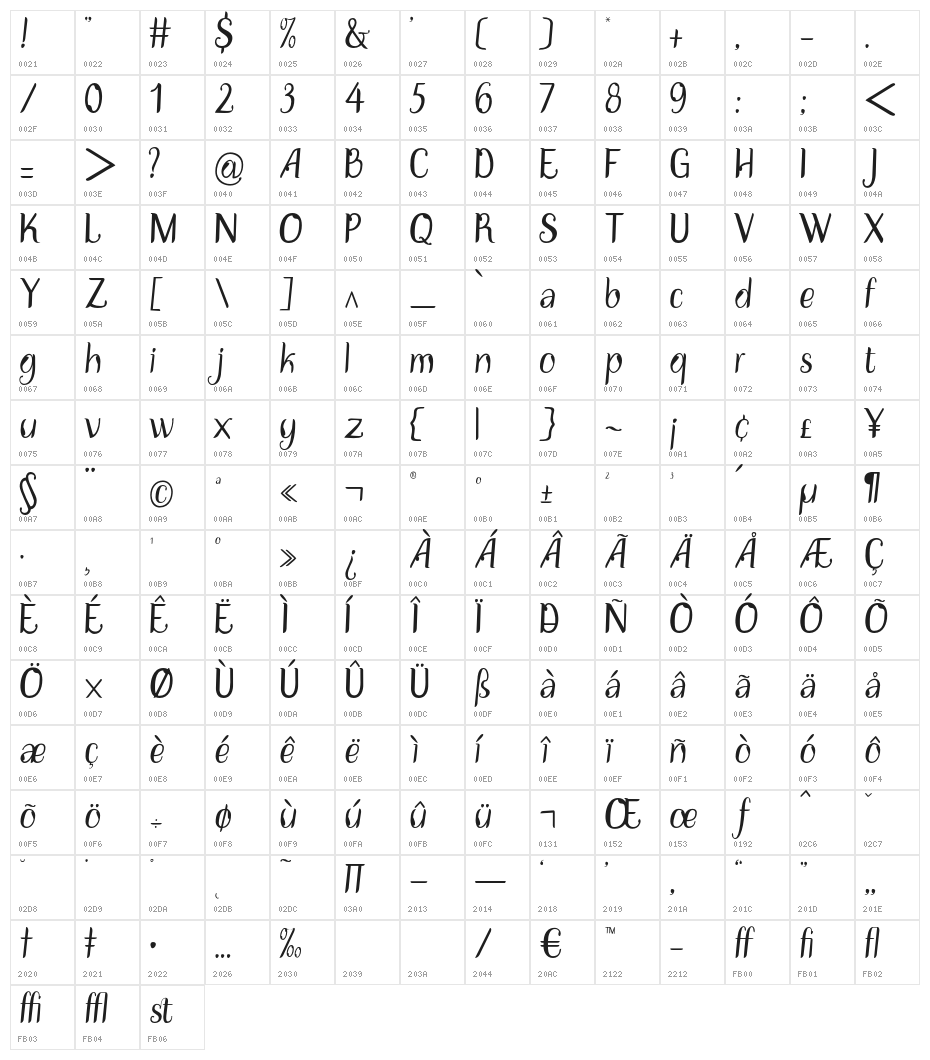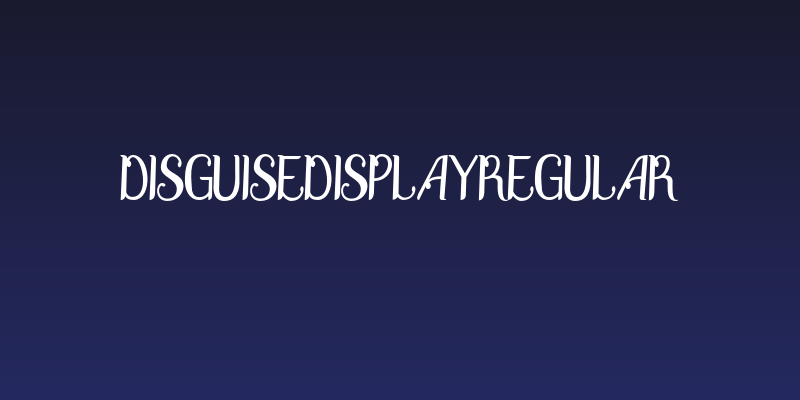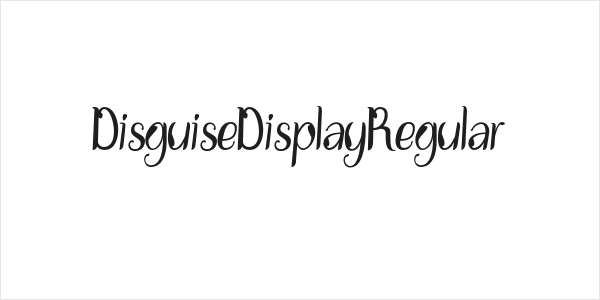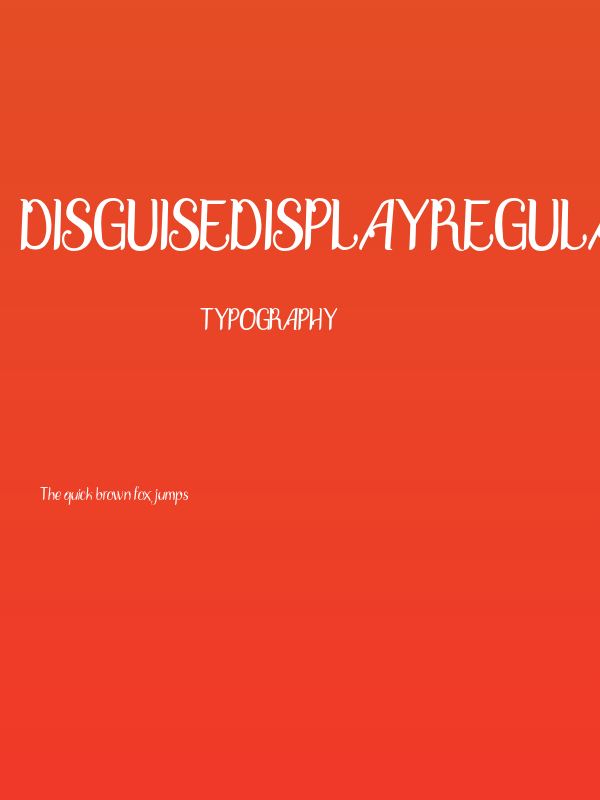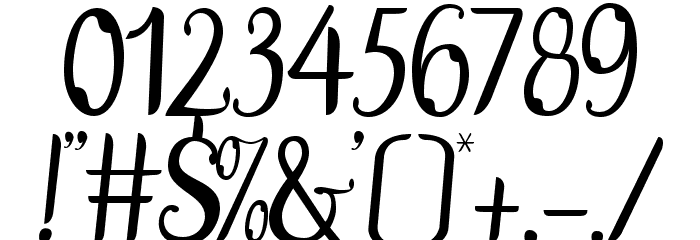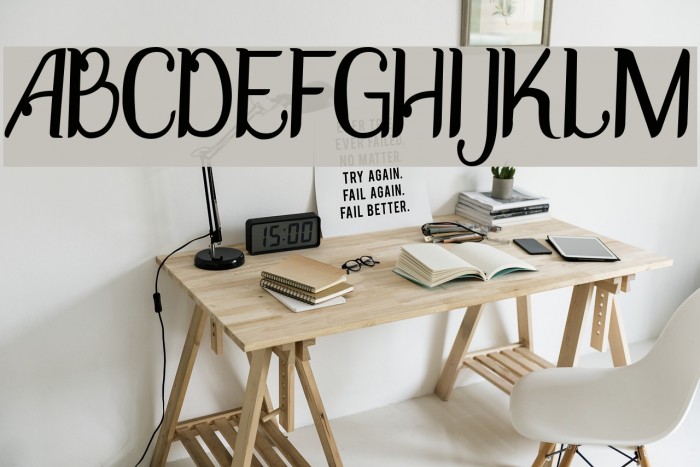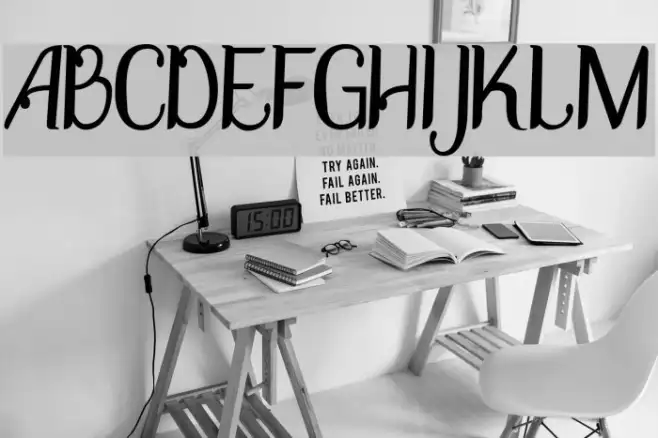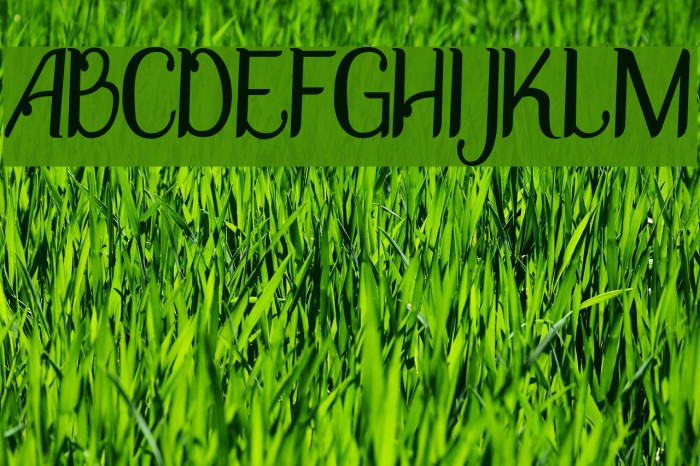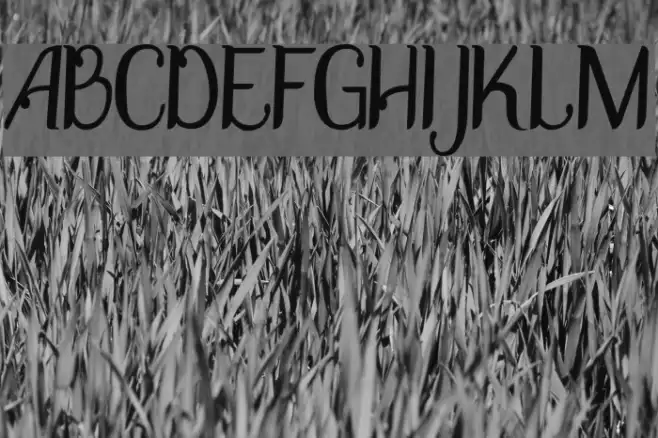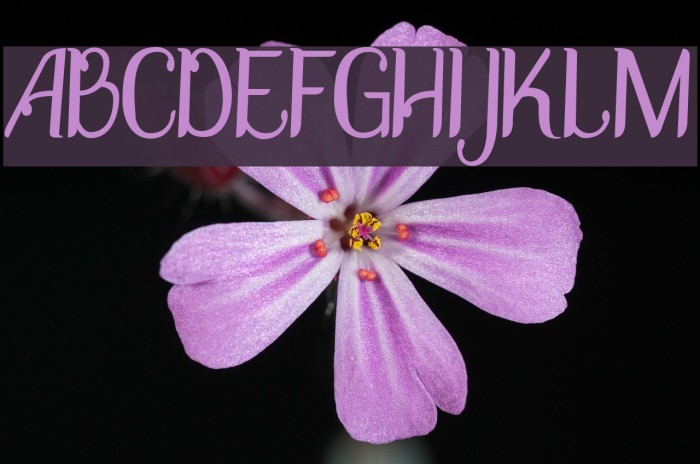
DisguiseDisplayRegular Font
DisguiseDisplayRegular Description
This font features a unique blend of elegance and playfulness, characterized by its flowing, cursive-like strokes and distinctively rounded edges. The uppercase letters are bold and prominent, with a slight slant that adds a dynamic feel. Lowercase letters maintain a consistent style, with smooth curves and a whimsical touch. Numbers and special characters are crafted with the same artistic flair, ensuring a cohesive look across all elements. The font's overall design is both eye-catching and versatile, making it suitable for a variety of creative applications.
| Use Case | Logos, Headlines, Invitations |
| Proposed Projects | Ideal for branding, invitations, posters, and creative projects that require a touch of elegance and playfulness. |